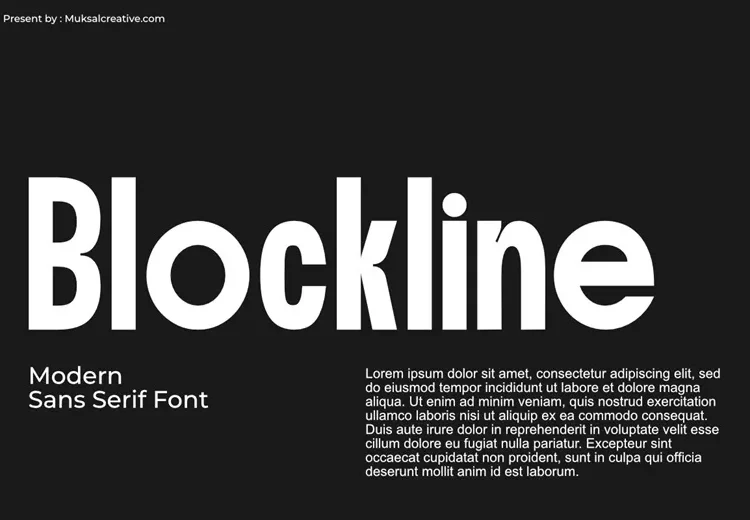
Blockline Font
Blockline is an elegant and innovative font designed specifically for headlines. Its simplicity, clear hierarchy, and modern aesthetic make it a go-to choice for captivating attention in logos, posters, and other high-impact designs. Whether in digital or print, its design ensures a bold and memorable presence.
The youthful yet timeless shapes of Blockline give it a unique versatility, blending contemporary appeal with a classic touch. This balance makes it suitable for a variety of creative projects, from branding materials to advertising campaigns, offering both style and functionality.
Ideal for projects requiring a clean and striking visual, Blockline delivers sophistication and clarity in equal measure. Its versatility ensures your designs remain professional while standing out in any medium.